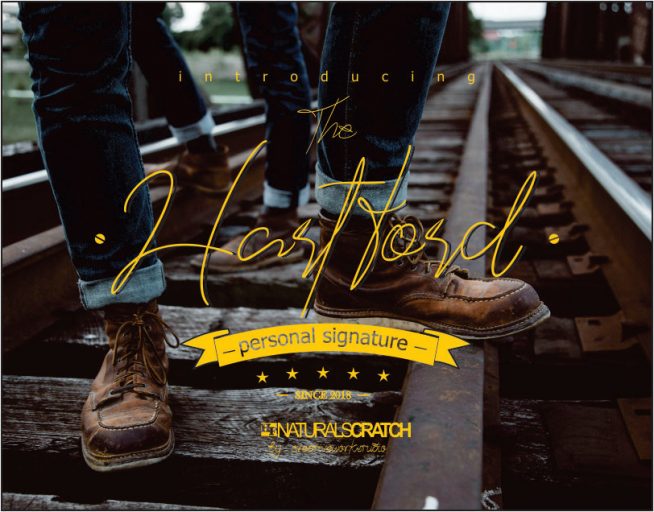
Hartford Handwritten Font
Hi designer! I am happy to introduce you to a handwritten typeface. Introducing Hartford Font! Hartford designed by Daddi Daryawan. Hartford is a signature style font where you will get hand scratches like the original. This font can be applied for various purposes such as product brands, logos, store boards, invitation cards, embossed letters, web titles, magazine headers, book titles and various product and company promotion needs.